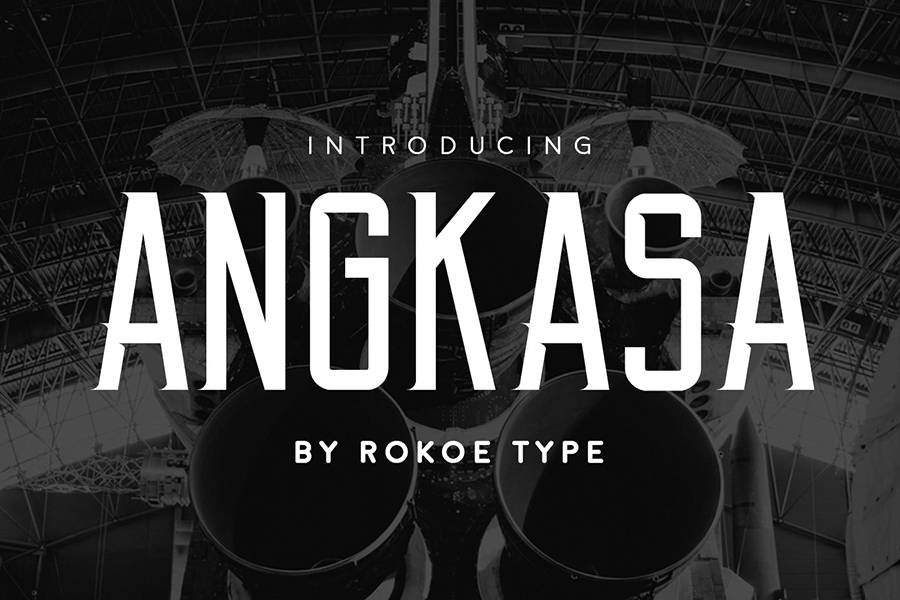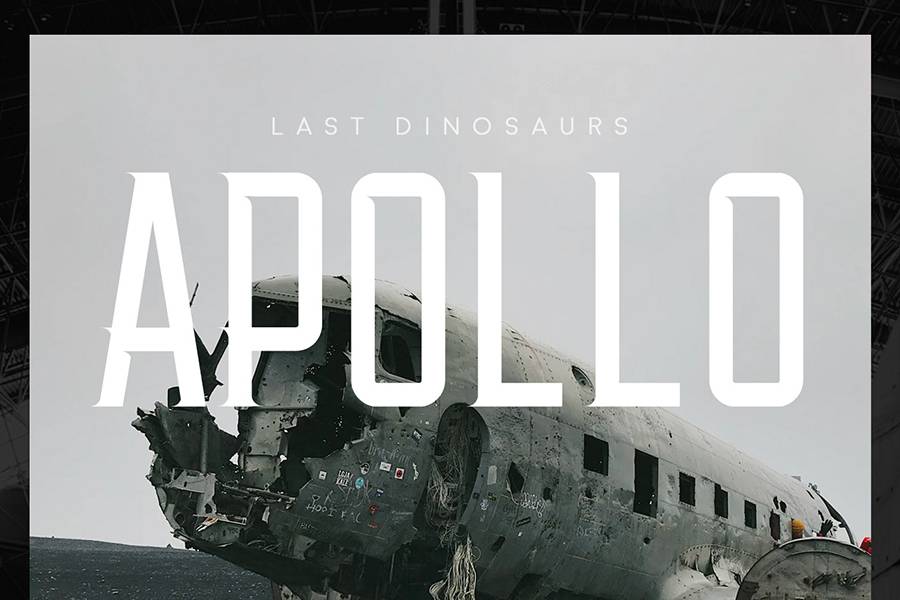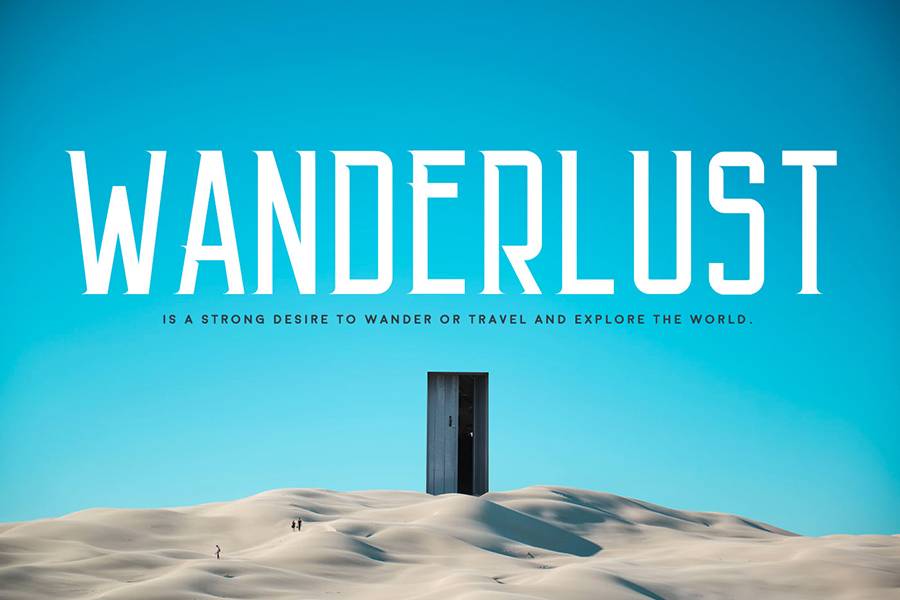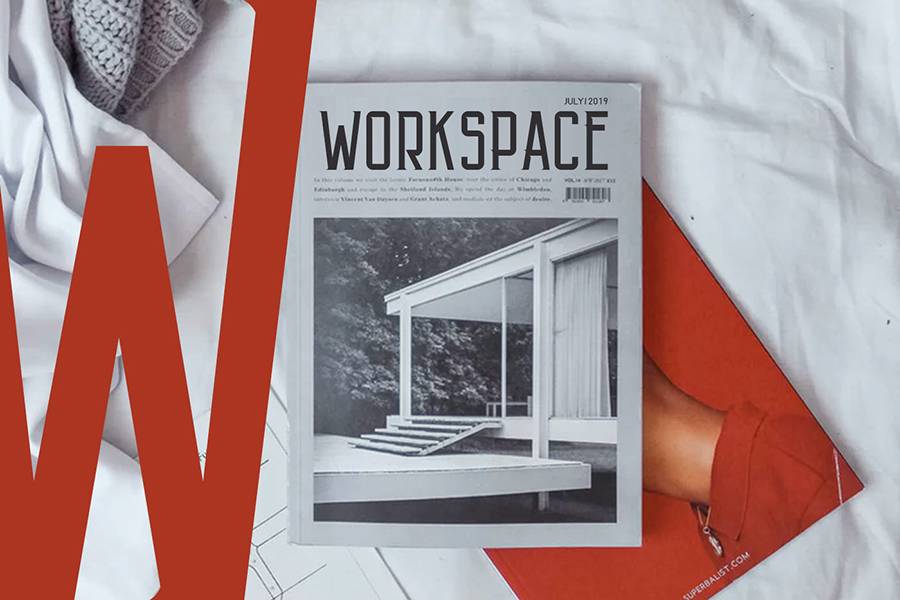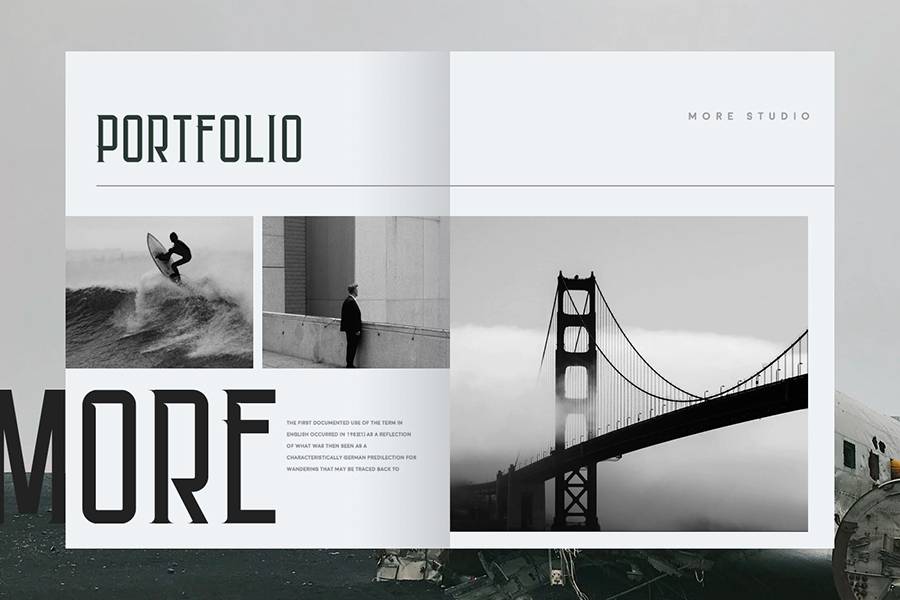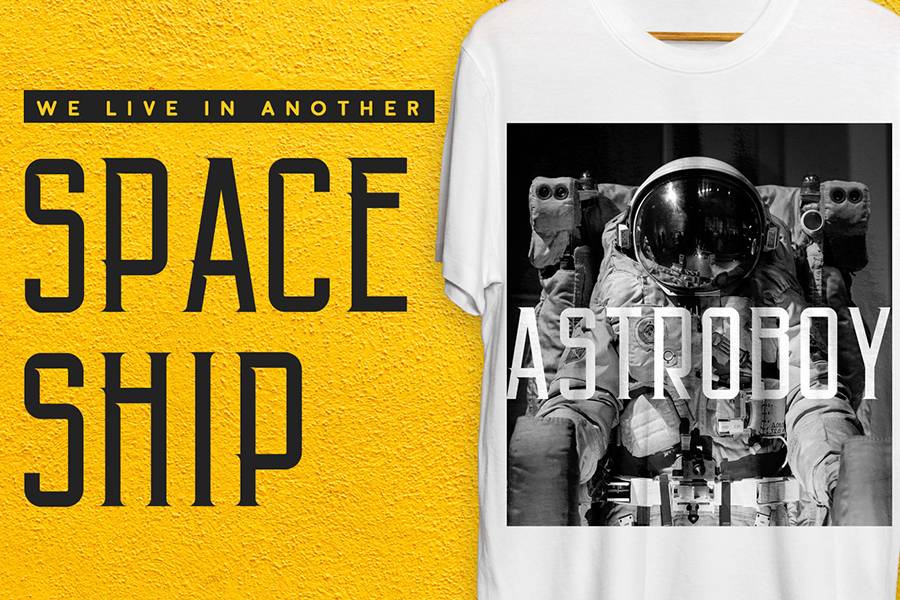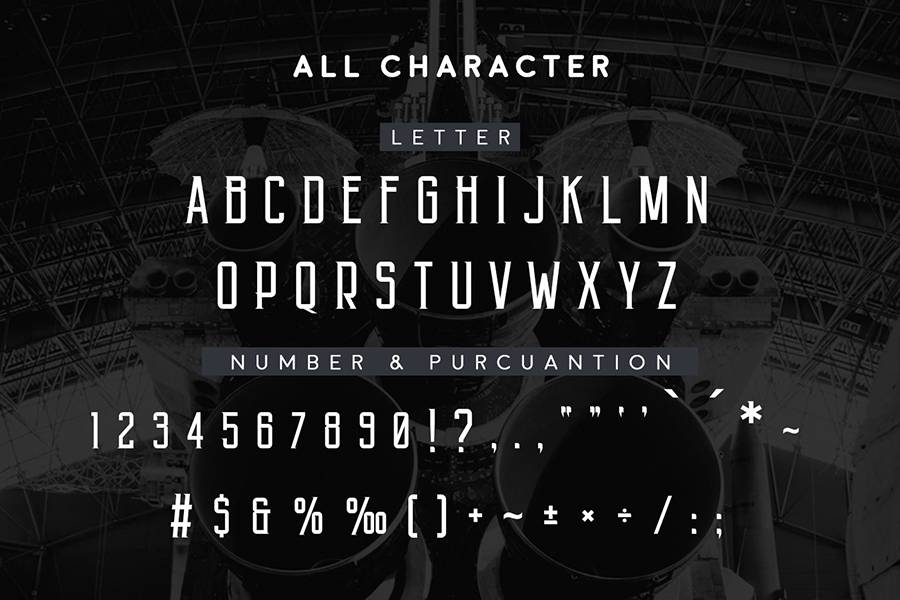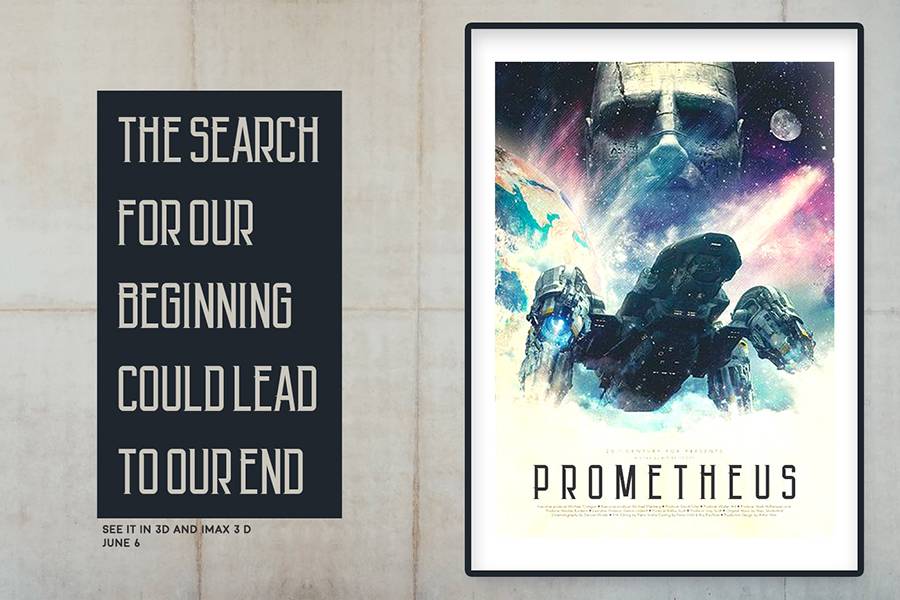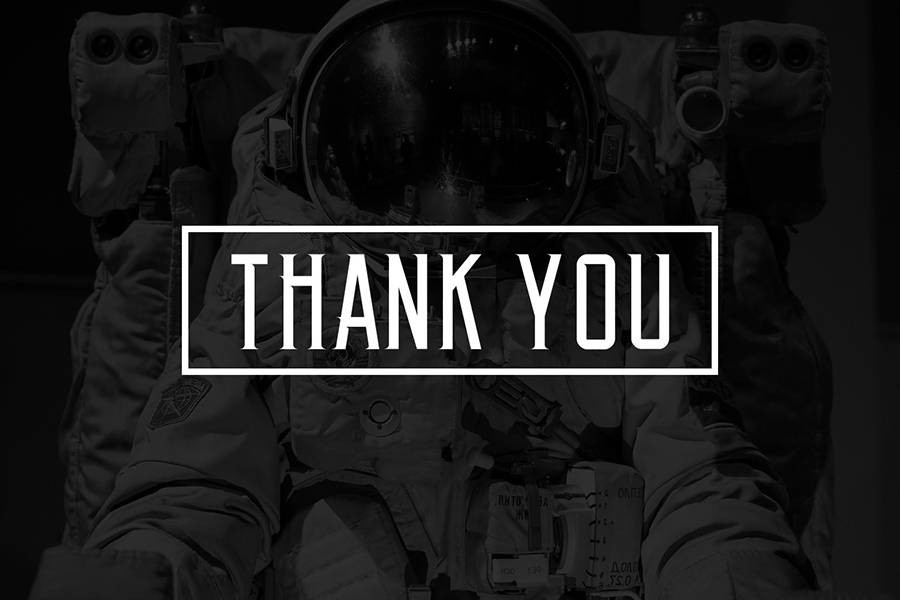
Angkasa Display is a tall, condensed serif font with a vintage yet modern appeal, featuring sharp, clean lines and strong contrast between thick and thin strokes. Its elegant and narrow letterforms create a striking presence, making it ideal for impactful headlines, logos, and branding that seek a bold, sophisticated look with a touch of classic style. This font works best in designs that require attention-grabbing typography with a refined, timeless feel.
Angkasa Display Font
About Angkasa Display Font
| Font family | Angkasa Display Font |
| Release date | 2019-07-25 |
| Designer | Rokoe Type |